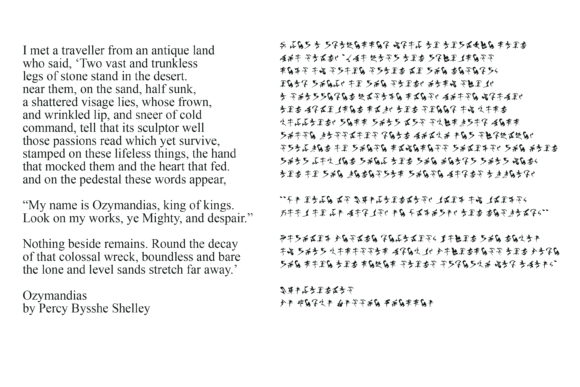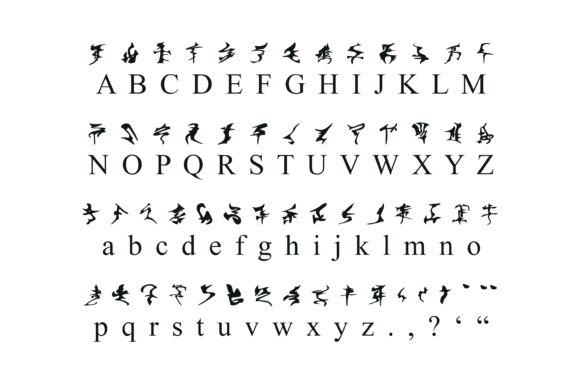
Fantasy Script 16 Font: Elevate Your Fantasy Creations with Elegance and Whimsy
Are you a designer, writer, or crafter looking to add a touch of magic to your projects? Look no further than the Fantasy Script 16 Font. This enchanting font is perfect for anyone working on a Dungeons and Dragons campaign, fantasy LARP adventure, novel, or any other creative endeavor that requires a dash of fantasy and flair.
A Font Fit for Fantasy
The Fantasy Script 16 Font is a beautiful, script-style font that is designed to evoke the sense of wonder and adventure that comes with fantasy worlds. Its elegant, cursive letters are perfect for creating titles, headings, and body text that will transport your readers to a world of magic and mystery.
Whether you’re creating a character sheet for your Dungeons and Dragons campaign, designing a logo for your fantasy LARP group, or writing a novel set in a mystical realm, this font is sure to add a touch of sophistication and whimsy to your work.
This Fantasy script font includes:
- The standard English alphabet (A-Z and a-z)
This means you can use the font to create a wide range of text, from simple labels and titles to longer passages of text.
The Fantasy Script 16 Font is a versatile font that can be used in a variety of creative projects, including:
- Dungeons and Dragons campaigns: Use the font to create character sheets, NPC profiles, and other game materials that will add to the fantasy atmosphere.
- Fantasy LARP adventures: Design logos, flyers, and other promotional materials that will help bring your LARP group to life.
- Novels and short stories: Use the font to create titles, headings, and body text that will transport your readers to a world of fantasy and adventure.
- Graphic design projects: Add a touch of elegance and whimsy to your designs with this beautiful script font.
Why Choose the Fantasy Script 16 Font?
There are many reasons to choose the Fantasy Script 16 Font for your next project:
- Elegant and sophisticated: The font’s elegant, cursive letters are perfect for creating text that is both refined and eye-catching.
- Fantasy-themed: The font’s fantasy-inspired design makes it perfect for any project that requires a touch of magic and adventure.
- Easy to read: Despite its elegant design, the font is easy to read, making it perfect for both titles and body text.
- Versatile: The font can be used in a wide range of creative projects, from graphic design to writing.
Get Ready to Add Some Magic to Your Projects
If you’re looking for a font that will add a touch of fantasy and elegance to your projects, look no further than the Fantasy Script 16 Font. With its beautiful, script-style design and versatile range of uses, this font is sure to become a favorite among designers, writers, and crafters.